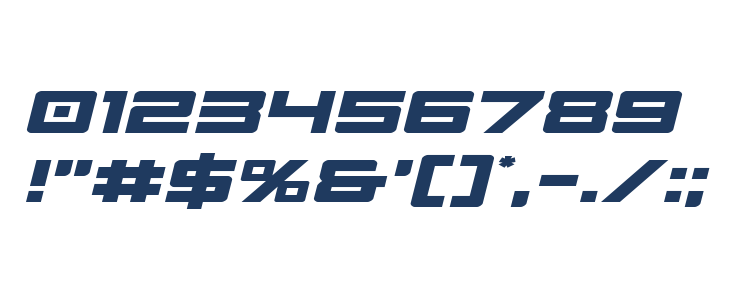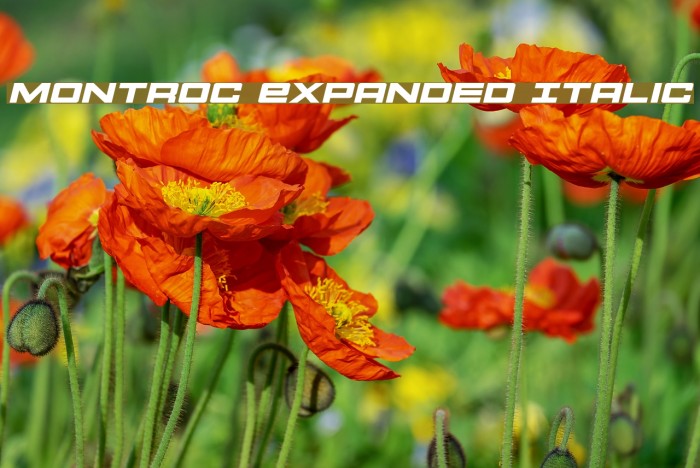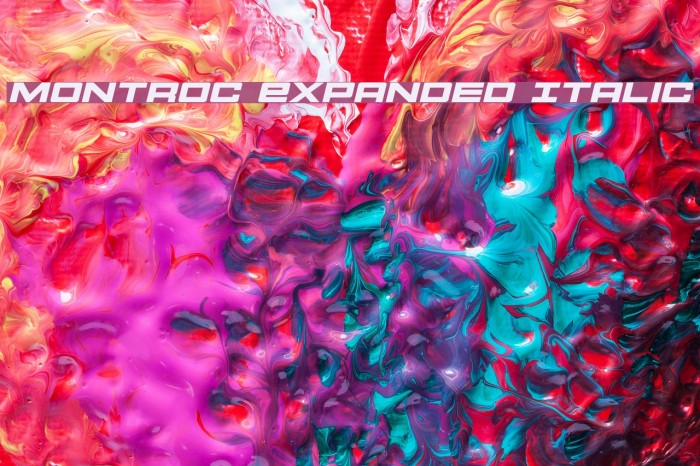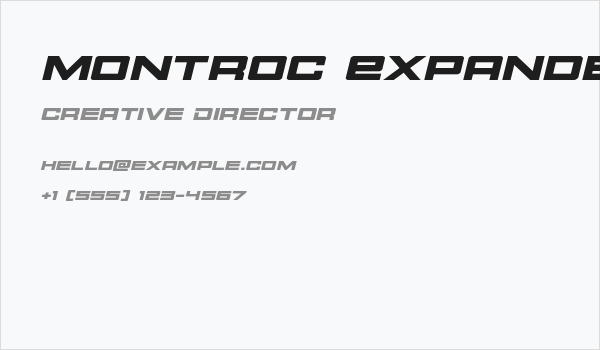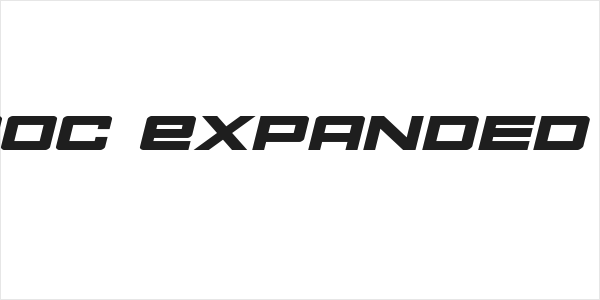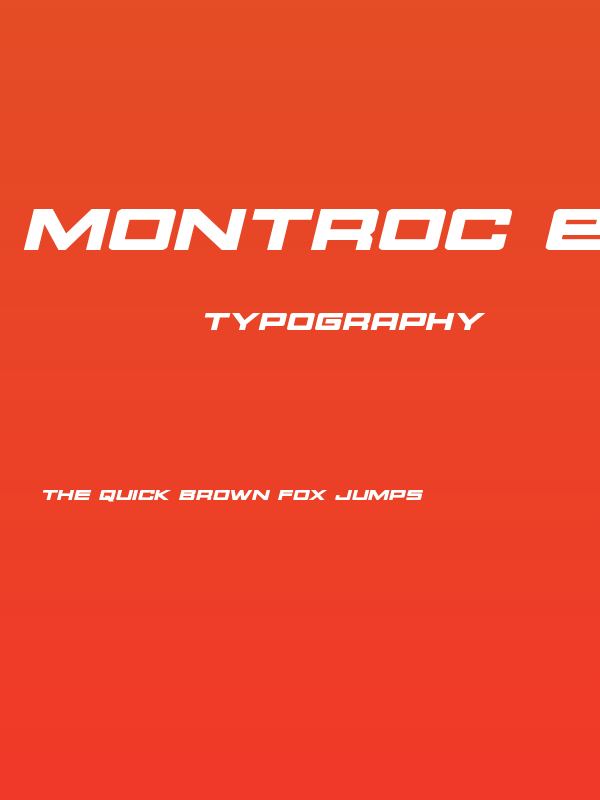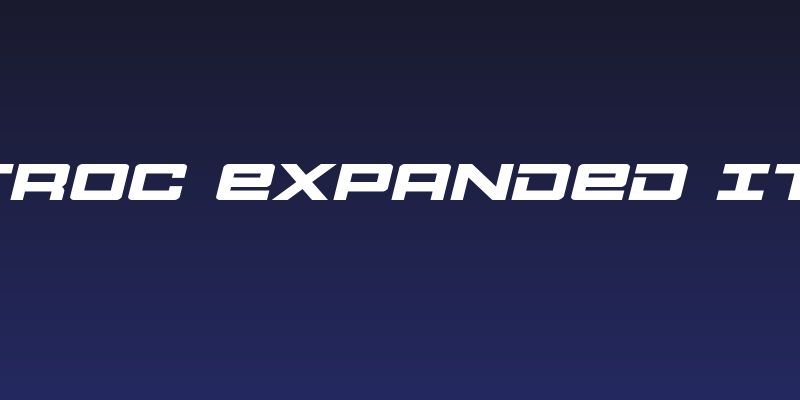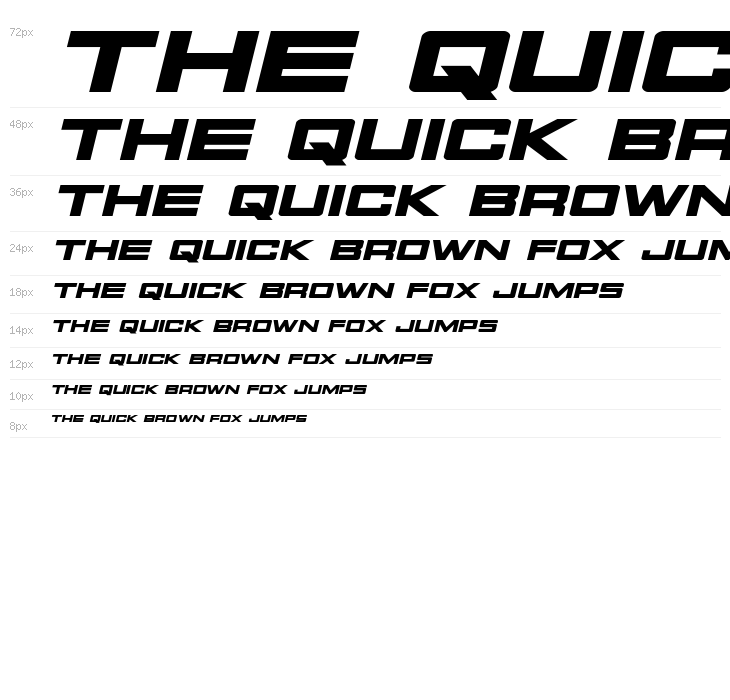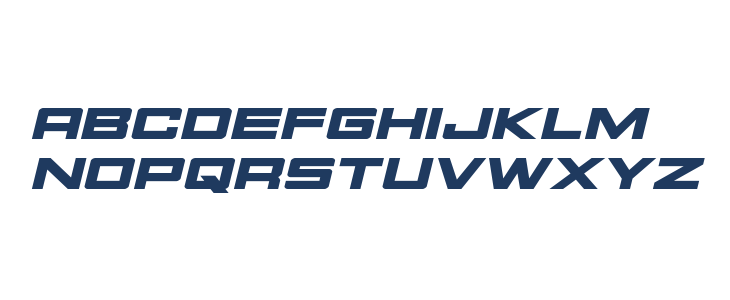
Montroc Expanded Italic Font
Montroc Expanded Italic Description
This font features a bold and dynamic style with an expanded width and italicized slant, giving it a sense of motion and energy. The characters are designed with a modern aesthetic, characterized by clean lines and geometric shapes. The uppercase and lowercase letters maintain a consistent style, while the numerals and special characters complement the overall design. The font's expanded width allows for a strong presence, making it suitable for attention-grabbing headlines and impactful designs.
| Proposed Projects | Ideal for sports branding, automotive designs, dynamic posters, and modern advertising campaigns. |